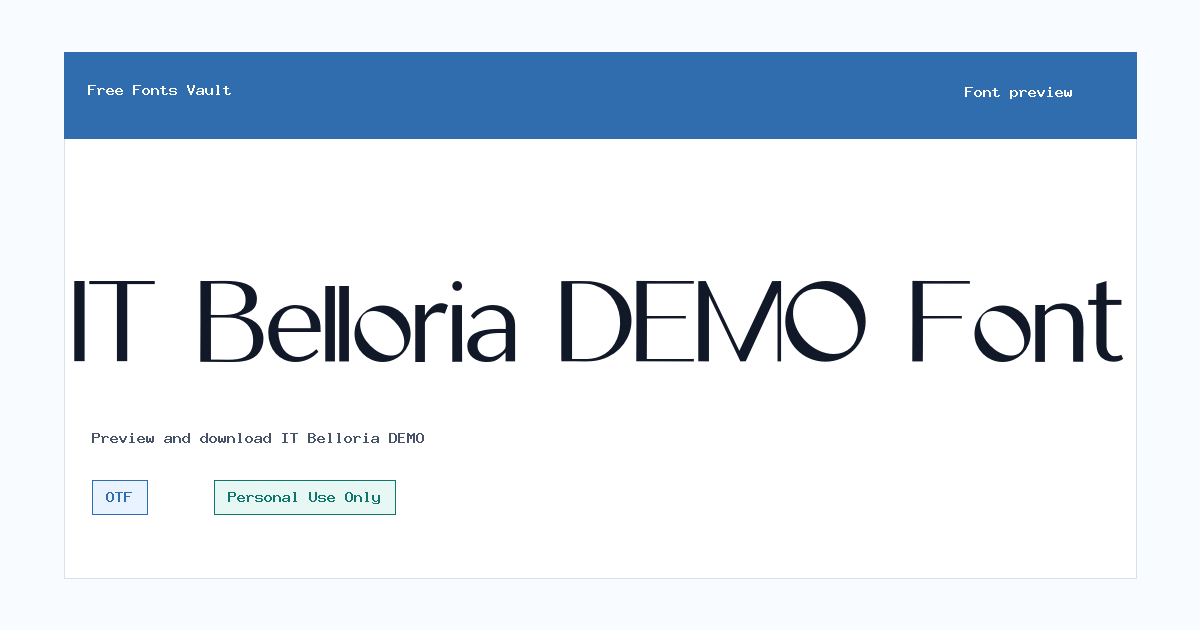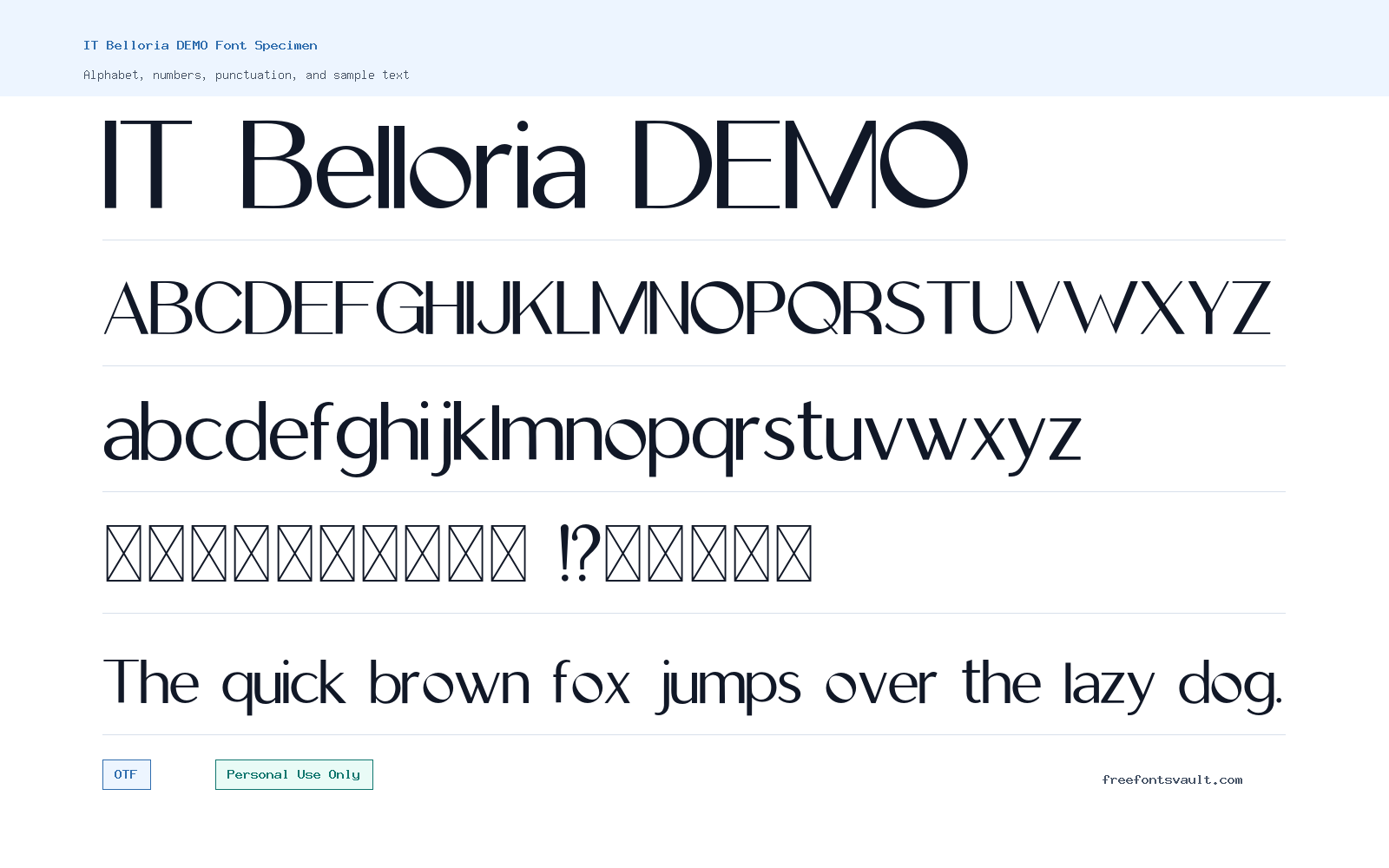
IT Belloria DEMO
- Designer Indotype Foundry
- Foundry Indotype Foundry
IT Belloria DEMO is a sans serif demo font from Indotype Foundry, offered for personal-use projects. It comes in OTF format with Regular and Bold styles, making it useful for testing headings, short branding concepts, poster text, and layout mockups before deciding whether it fits your design.
IT Belloria DEMO is best approached as a clean sans serif display option for personal work and design exploration. The name and license wording identify it as part of the IT Belloria Sans Serif Font Family, while the downloadable demo files give you two practical weights to test: Regular and Bold. That makes it easier to compare lighter text settings with stronger headline treatments in the same visual direction. Because the evidence does not confirm the full commercial family details, it is safest to treat this download as a demo version rather than a complete professional license package.
Use the preview box to test the exact words you plan to design with, especially if you are working on a logo draft, social graphic, poster title, website hero mockup, or presentation cover. Sans serif fonts can change character a lot depending on spacing, size, and weight, so try both short all-caps words and mixed-case phrases. The Bold file is likely the better starting point for attention-grabbing titles, while the Regular file can help with subtitles, supporting labels, and cleaner text blocks. For longer paragraphs, check the spacing carefully at small sizes before relying on it, because demo fonts are often more useful for display testing than full publication systems.
- Includes Regular and Bold weights, giving visitors a simple way to compare normal text and stronger headline settings.
- Personal logo concepts, brand mood boards, poster titles, social media graphics, and web layout mockups.
- Testing short headings, navigation labels, presentation covers, and display text before choosing a licensed production font.
Who made IT Belloria DEMO?
Indotype Foundry is listed as the designer/foundry for IT Belloria DEMO.
What should I pair IT Belloria DEMO with?
Try pairing it with a simple, highly readable text face for body copy. Let IT Belloria DEMO handle the headline, logo draft, or display text, and keep supporting paragraphs more neutral.